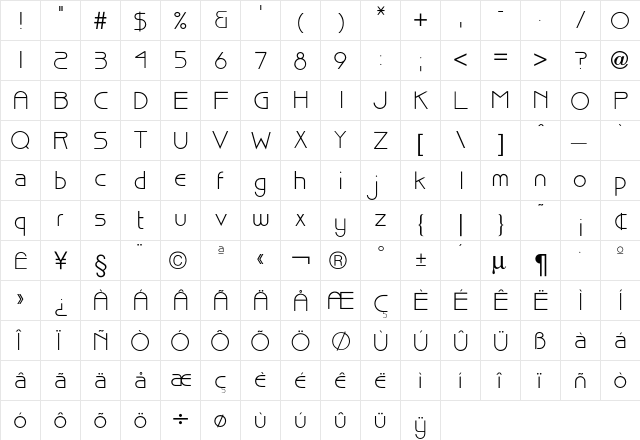
Bisque Medium
Design Context for Bisque Typeface
Bisque is a composed and adaptable typeface that performs quietly and consistently across a wide range of design contexts.